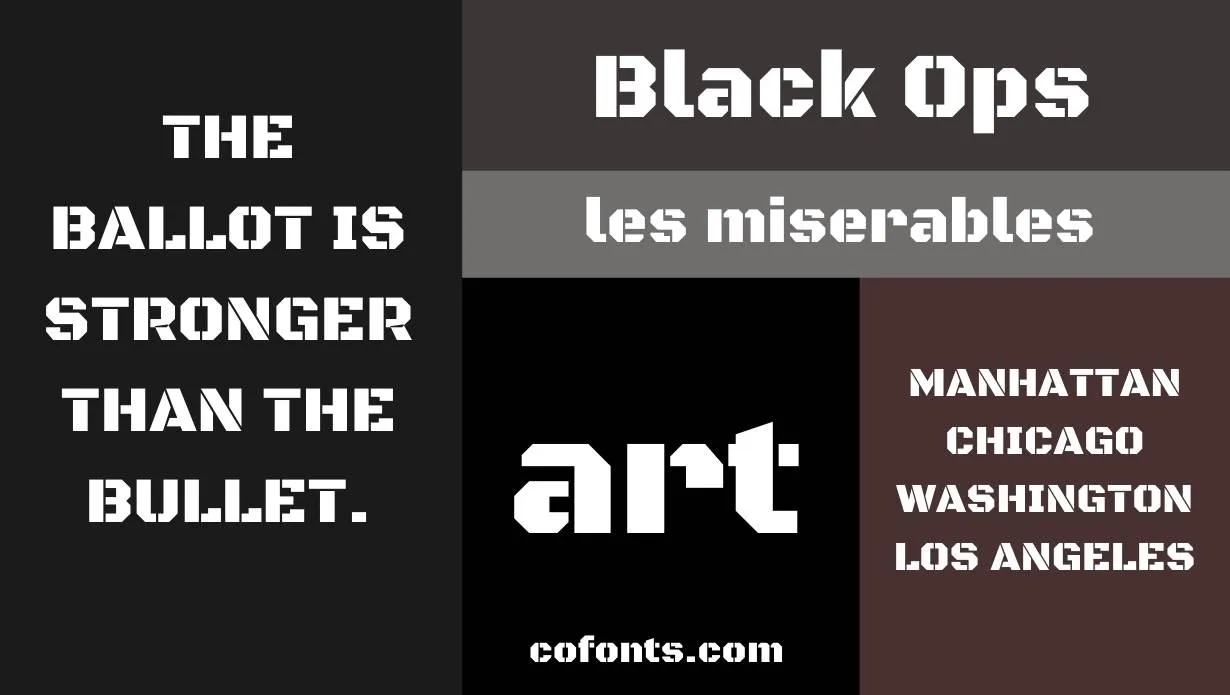
About Black Ops Font
The "Black Ops Font" refers to the bold, utilitarian stencil typeface made famous by the Call of Duty: Black Ops video game series. Its design mimics rugged military stenciling, featuring clean, geometric letterforms with distinctive breaks characteristic of spray-painted markings. This font evokes immediate associations with action, secrecy, and tactical operations. While the exact font used in the game is proprietary, many commercially available stencil fonts (e.g., "Agency FB," "Stencil") replicate its aesthetic. It is a powerful choice for posters, gaming content, and designs requiring a bold, military-inspired impact.